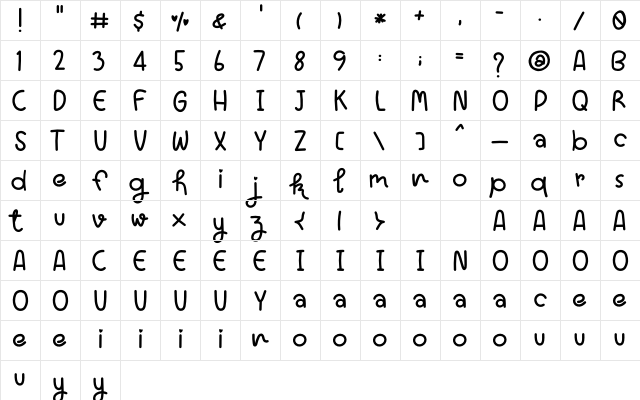
Tyta Bold
| Designer | PsCreative |
Design Context for Tyta Typeface
Tyta is a composed and adaptable typeface that performs quietly and consistently across a wide range of design contexts. The heavy weight commands attention and anchors typographic hierarchies.